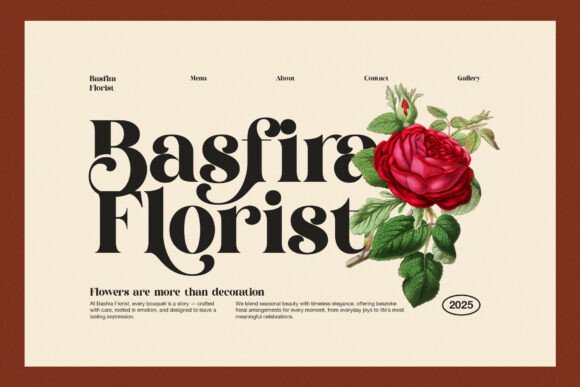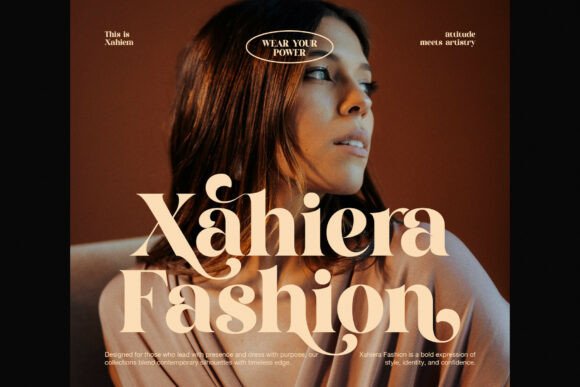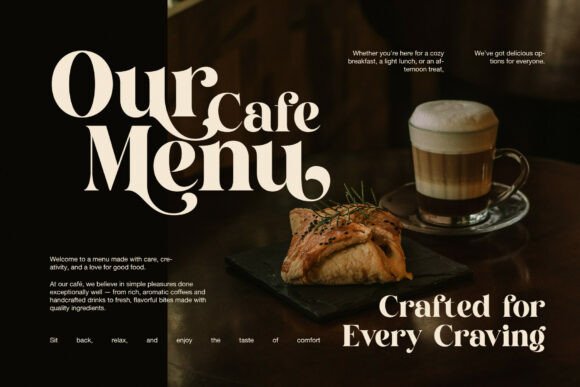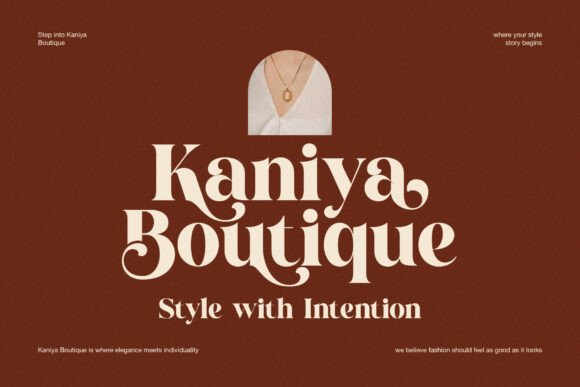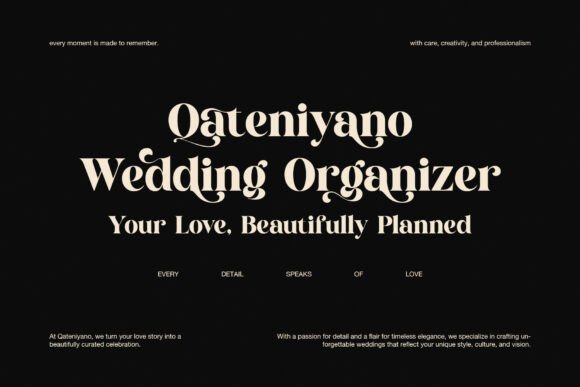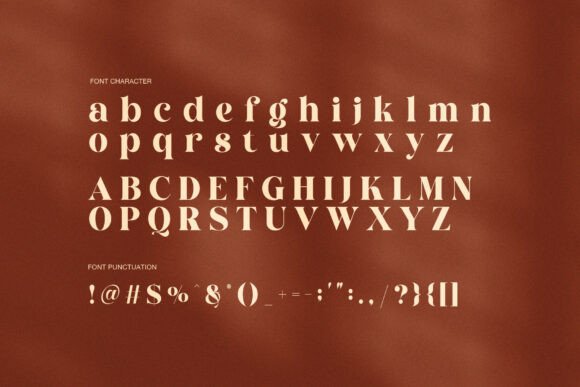
Discover the Elegance of Chatoya Font: A Serif Display Font for Timeless Designs
In the world of typography, few fonts manage to convey the perfect blend of elegance, warmth, and refinement. Chatoya Font, however, stands out as a shining example of a serif display font that embodies these qualities. Inspired by the classic floral aesthetics and timeless editorial design, Chatoya combines soft curves with confident serif construction, delivering a graceful presence that feels both romantic and professional.
The Inspiration Behind Chatoya
Chatoya’s design is rooted in the beauty of classic floral patterns and the sophistication of editorial design. The font’s creator aimed to capture the essence of traditional typography while infusing it with a modern twist. The result is a font that exudes warmth, beauty, and a refined character, making it perfect for designs that require a touch of elegance.
Design Characteristics of Chatoya
One of the defining features of Chatoya is its carefully crafted characters, each designed with smooth strokes and balanced contrast. The letterforms feel organic, flowing naturally across words and headlines, creating a sense of fluidity and harmony. This thoughtful design ensures that Chatoya performs beautifully in large text, while remaining clear and readable even at smaller sizes.
The font’s structure is also noteworthy, as it helps guide the eye through every composition, making it feel calm and intentional. This makes Chatoya an excellent choice for designers and crafters looking to create visually appealing and well-structured designs.
Key Features of Chatoya Font
- Elegant Serif Design: Chatoya boasts a classic serif design that adds a touch of sophistication to any project.
- Soft Curves and Confident Construction: The font’s soft curves and confident serif construction create a beautiful balance of elegance and refinement.
- Smooth Strokes and Balanced Contrast: Each character is carefully crafted with smooth strokes and balanced contrast, ensuring a high level of readability and visual appeal.
- Organic and Flowing Letterforms: Chatoya’s letterforms feel organic and flow naturally across words and headlines, creating a sense of harmony and fluidity.
- Excellent Readability: The font’s design ensures that it remains clear and readable, even at smaller sizes, making it perfect for a wide range of applications.
Use Cases for Chatoya Font
Chatoya’s versatility makes it suitable for a variety of design projects, including:
- Editorial Design: Chatoya’s classic serif design and elegant appearance make it perfect for editorial design, including magazines, newspapers, and books.
- Branding and Packaging: The font’s refined character and sophisticated appearance make it an excellent choice for branding and packaging designs.
- Wedding and Event Design: Chatoya’s romantic and elegant feel makes it perfect for wedding and event designs, including invitations, programs, and signage.
- Digital and Print Media: The font’s excellent readability and versatility make it suitable for a wide range of digital and print media applications.
Chatoya Font is a stunning serif display font that offers a perfect blend of elegance, warmth, and refinement. Its thoughtful design, smooth strokes, and balanced contrast make it an excellent choice for designers and crafters looking to create timeless and visually appealing designs. Whether you’re working on editorial design, branding, wedding design, or digital media, Chatoya is sure to impress with its classic beauty and sophisticated appearance.